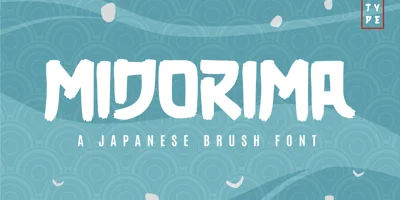
Midorima Font
Midorima Font presents designers with a precise typeface that embodies strategic excellence and basketball sophistication with athletic determination. However, for commercial use, you must purchase this font. You can download it for free for testing purposes only.
Midorima Font excels in sports design applications including basketball team branding, athletic performance centers, sports training facilities, competitive gaming interfaces, precision sports equipment, strategic coaching materials, basketball academy communications, athletic scholarship programs, sports analytics platforms, and competitive excellence campaigns. This focused typeface brings athletic precision to performance-driven design projects.
What makes Midorima Font truly exciting is its perfect embodiment of strategic precision with sharp letterforms that reflect the discipline and accuracy required for elite athletic performance through calculated design elements. The font features precisely crafted characters with athletic proportions and competitive focus that convey determination, excellence, and the unwavering dedication of serious athletes. Its strategic personality and competitive character make it ideal for brands celebrating athletic achievement, sports excellence, and audiences who appreciate competitive spirit, strategic thinking, and the relentless pursuit of perfection that defines championship-level performance.
The Midorima Font family typically includes multiple weights with potential sharp and angular variations that enhance its precision character. These strategic options provide designers with complete athletic styling while maintaining the font's distinctive competitive elegance and focused presentation across various sports applications and performance contexts.
Whether you're developing athletic branding, creating competitive campaigns, or designing sports marketing materials, Midorima Font delivers the athletic authority and strategic sophistication that performance-focused projects require. Its exceptional precision and competitive appeal make it invaluable for designers working with sports organizations, athletic training facilities, and performance-driven brands requiring typography that celebrates strategic excellence, athletic determination, and the focused mindset that transforms dedicated athletes into champions through consistent practice, strategic thinking, and unwavering commitment to competitive excellence.